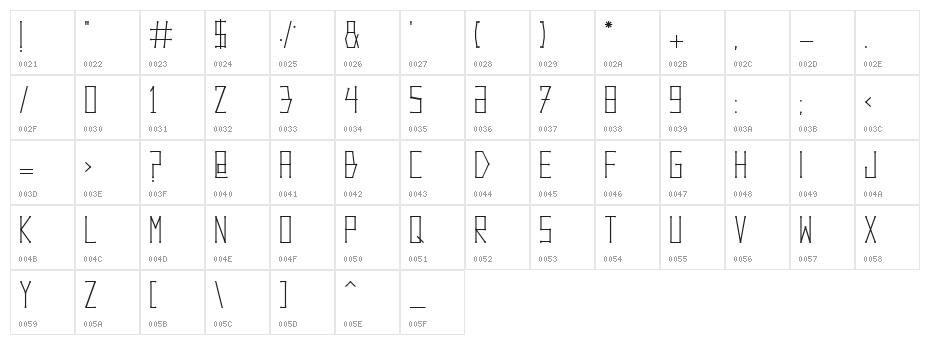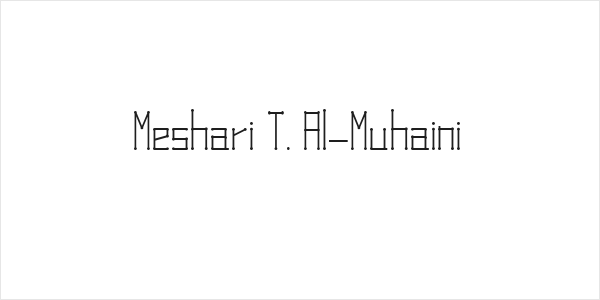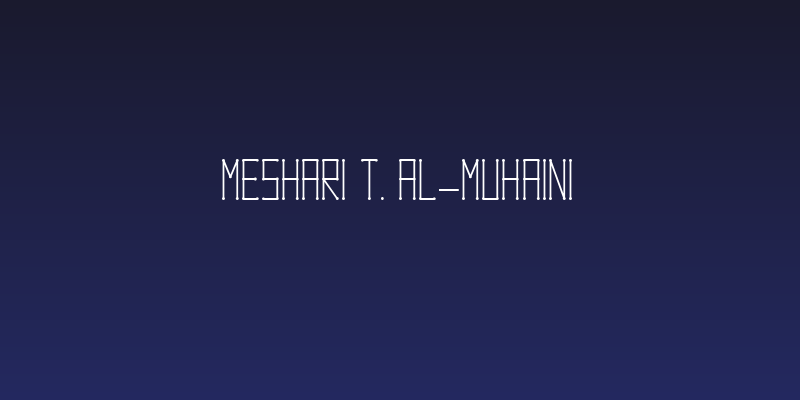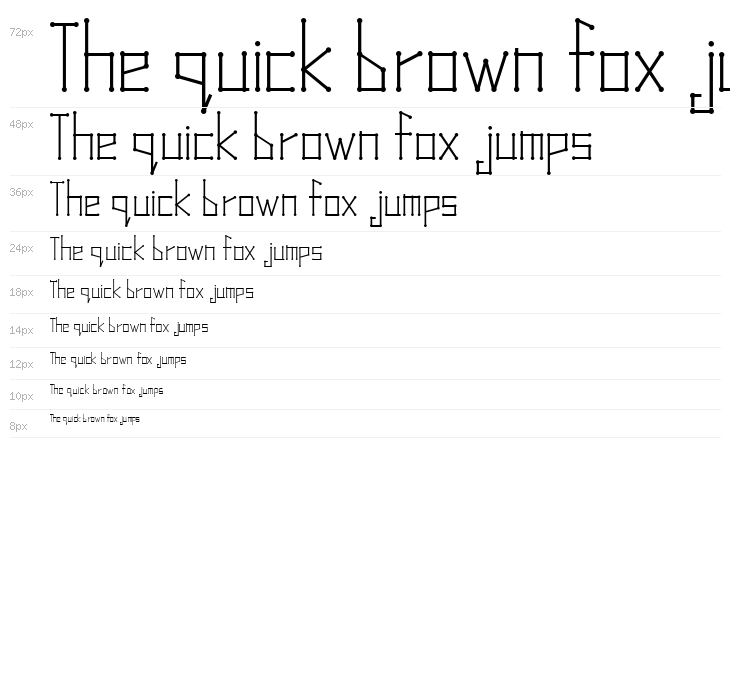
Meshari T. Al-Muhaini Font
Meshari T. Al-Muhaini Description
This font features a unique and modern design, characterized by its use of dots connected by straight lines to form each character. The geometric structure gives it a technical and futuristic appearance, making it stand out from traditional typefaces. The uppercase and lowercase letters maintain a consistent style, with sharp angles and a uniform line thickness. Numbers and special characters follow the same design principles, ensuring a cohesive look across all elements. This font is ideal for projects that require a distinctive and eye-catching typeface.
| Proposed Projects | Ideal for tech-related branding, futuristic posters, and digital artwork. |